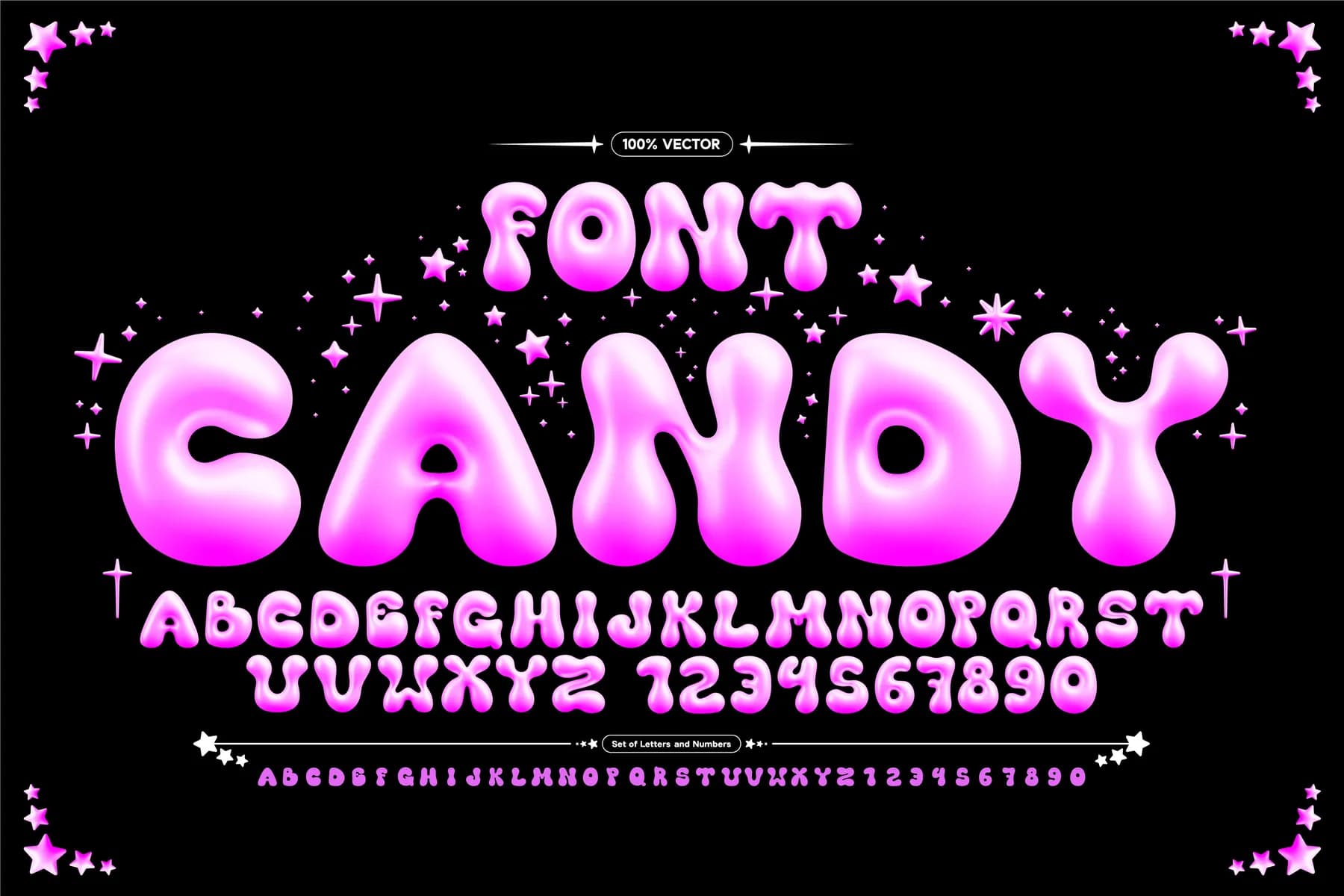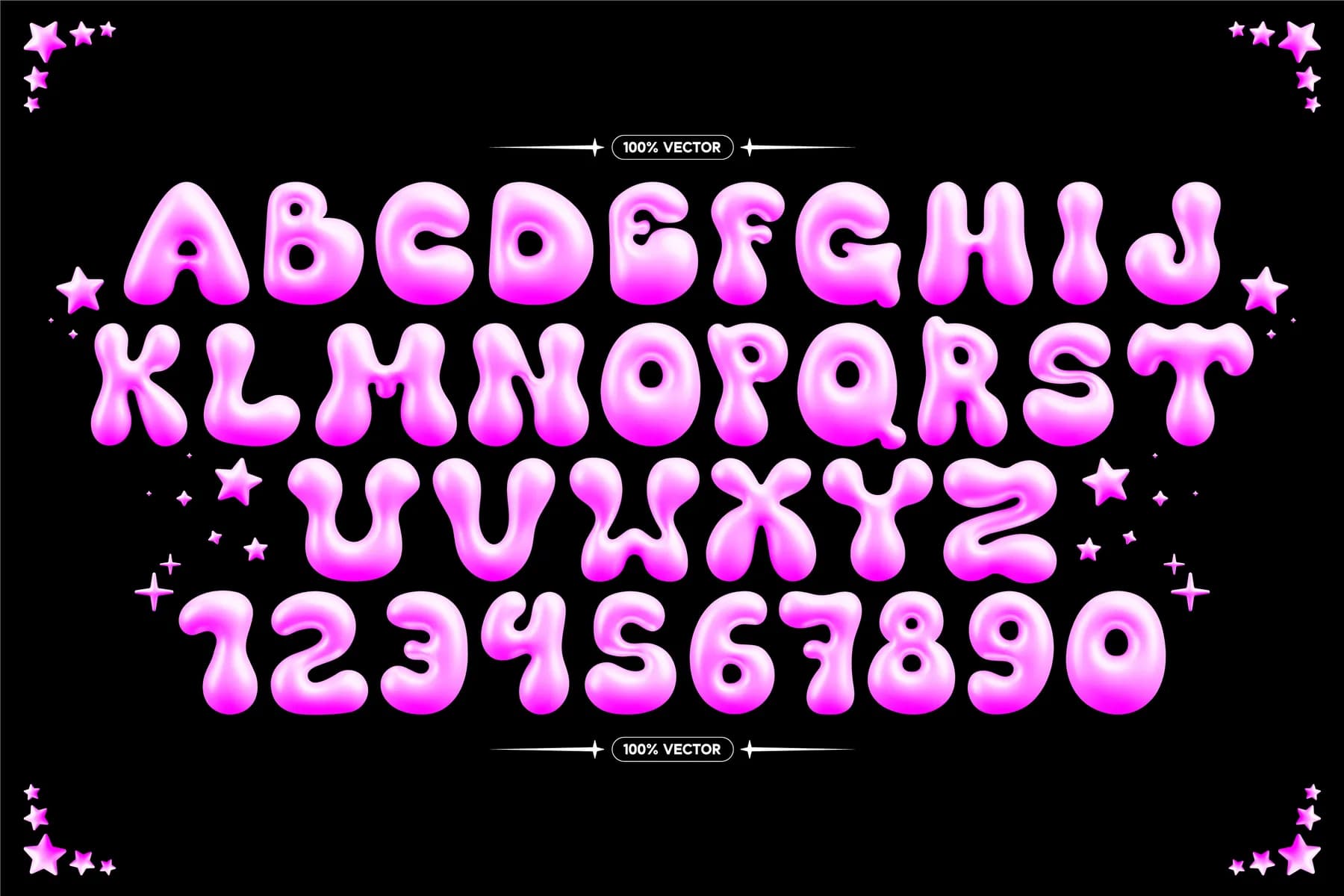
Glossy candy bubble font. Inflated alphabet, 3D pink ballon letters and numbers. Vector set + Flat font
I present to you a vector 3D font that, with its bright and expressive look, will add uniqueness to your designs. It’s perfect for creating memorable headlines, posters, logos, and any other projects where emphasis and volume are needed.